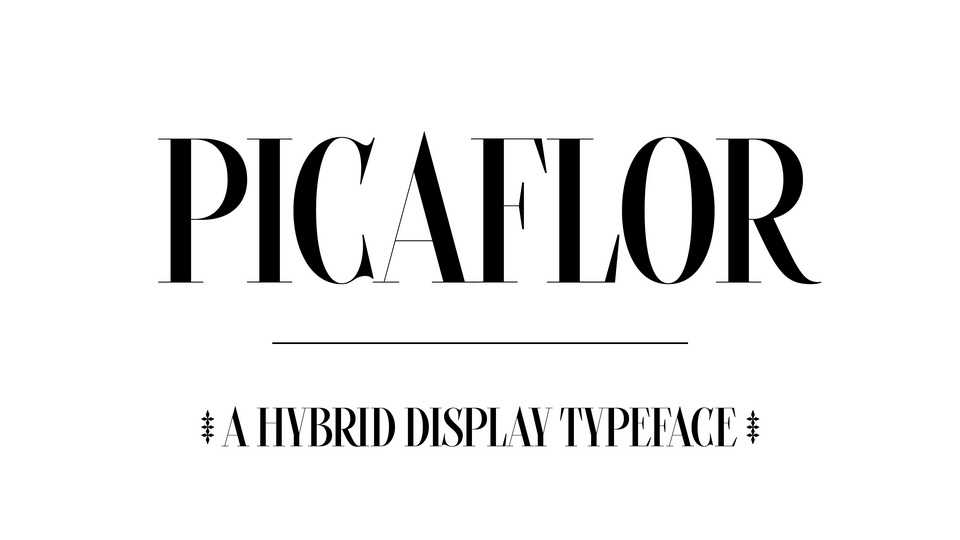
Download Picaflor font, a hybrid display serif typeface with calligraphic details – French Didone meet Spanish vernacular exhuberance. Picaflor also comes as variable font with contrast axis.
Designer: Ariel Martín Pérez